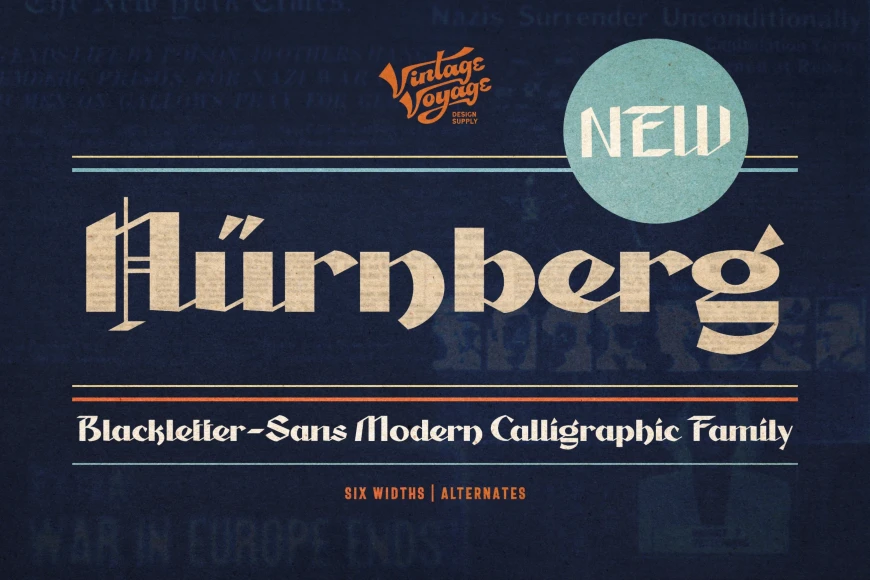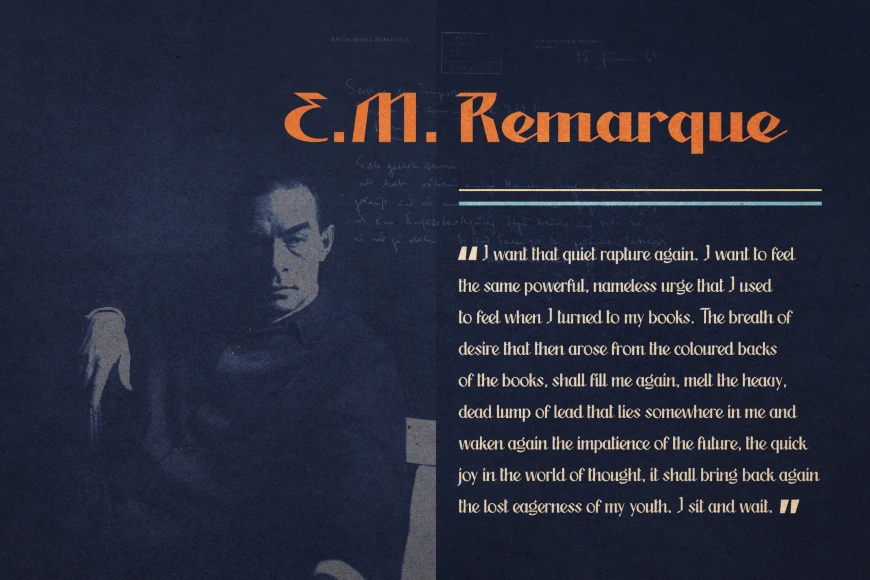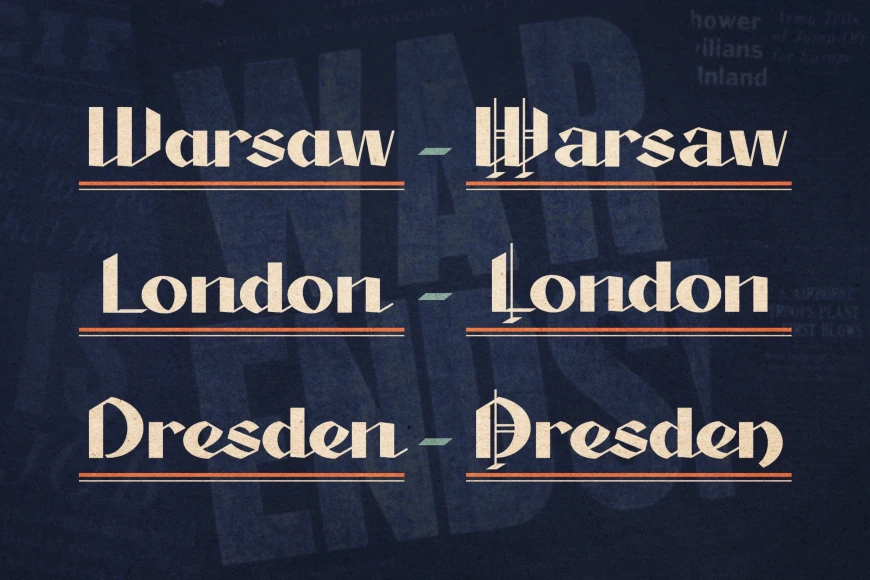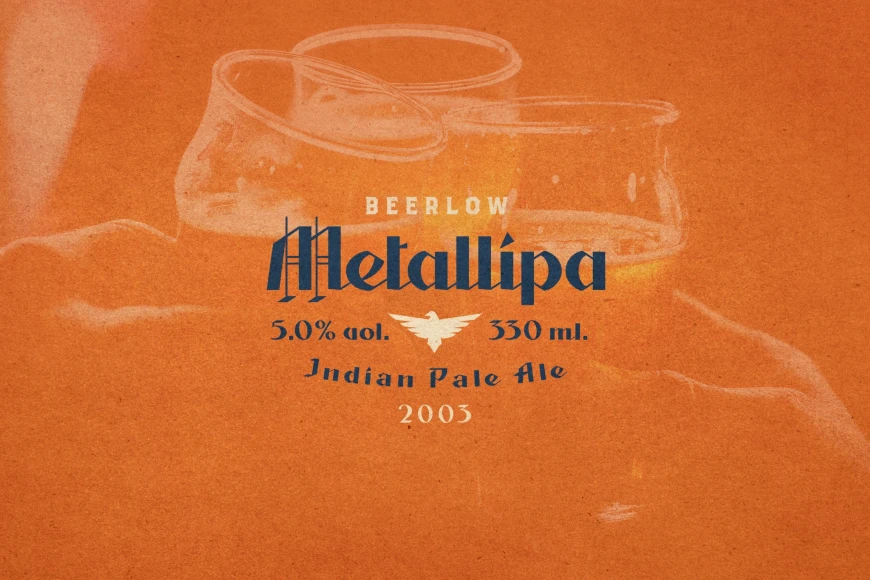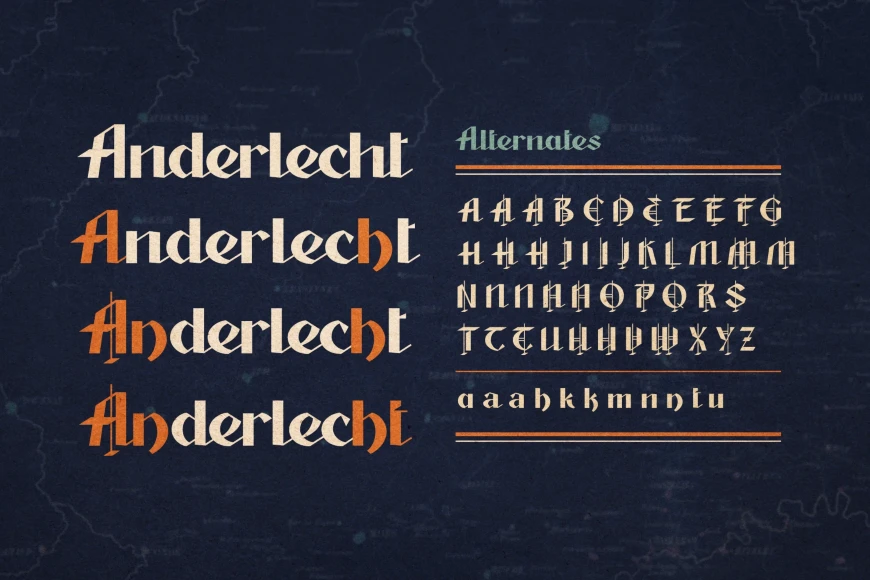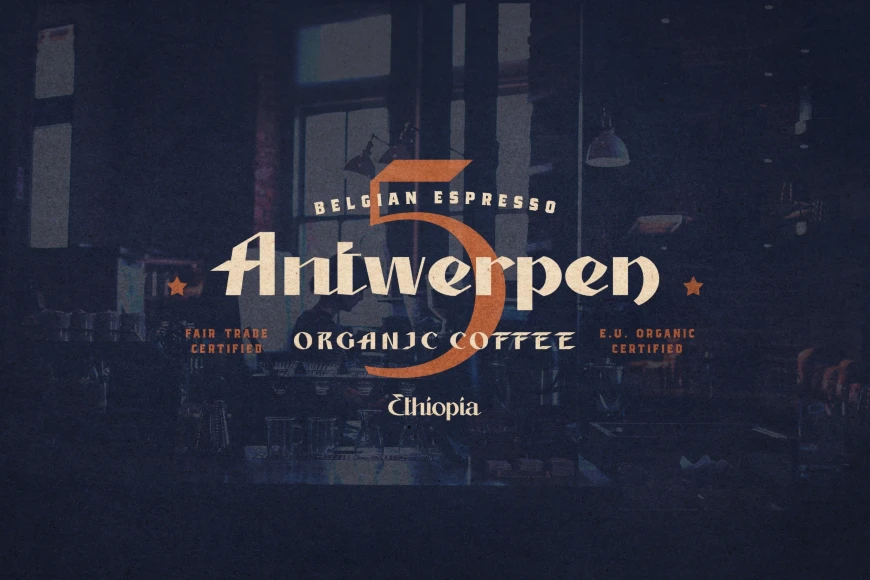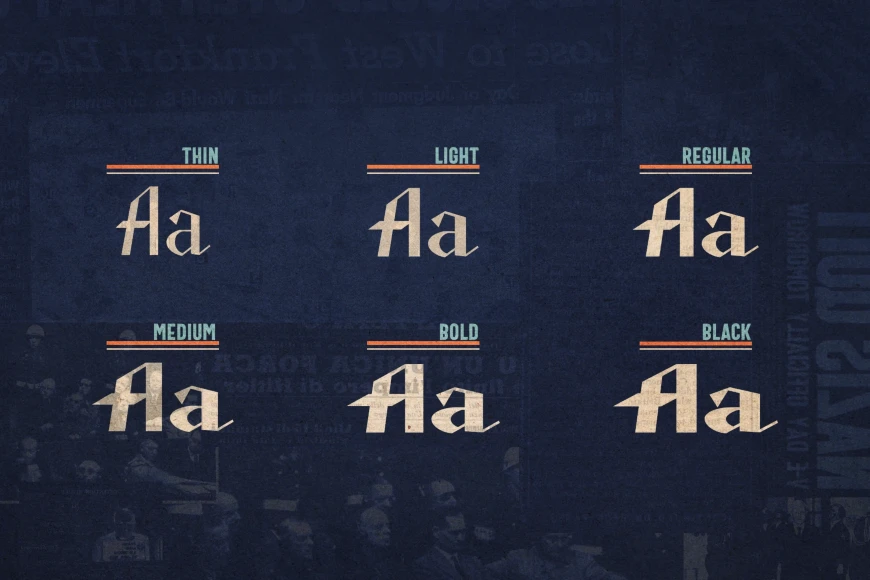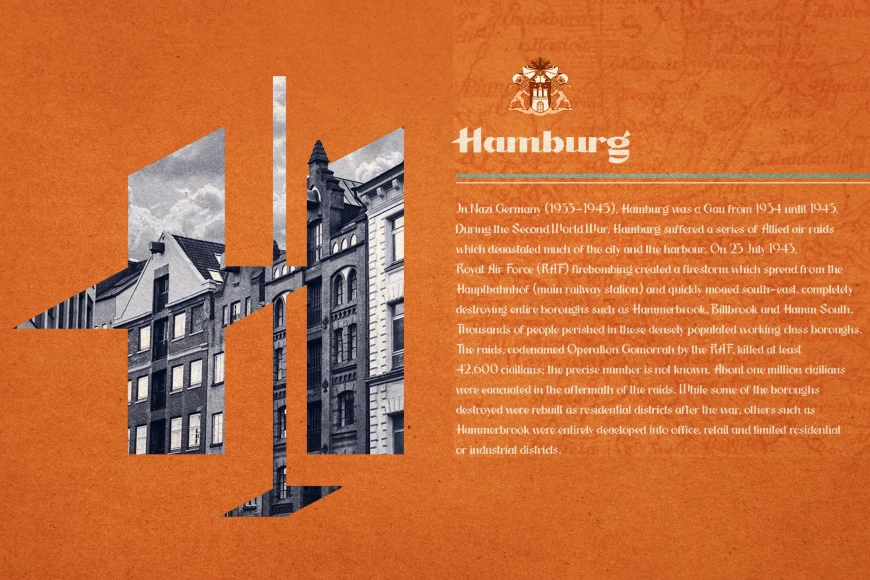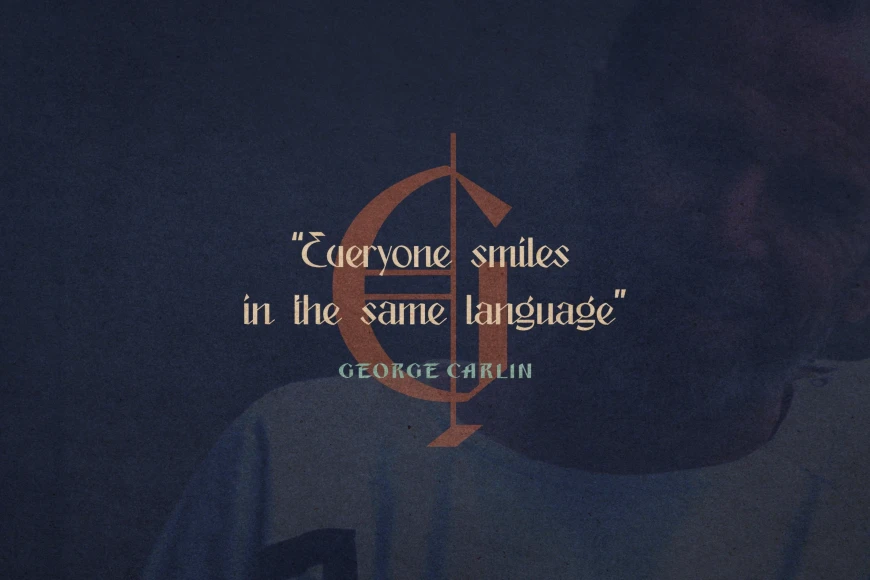
Nurnberg
Nurnberg Thin
Nurnberg Light
Nurnberg Regular
Nurnberg Medium
Nurnberg Bold
Nurnberg Black
Nurnberg is a modern blackletter-sans font family with strong contrast and distinctive character. Combines standard sans-serif forms with alternate uppercase letters inspired by traditional blackletter styles. Paired with expressive lowercase alternates, it offers a bold, unconventional look.
Available in six widths, from Thin to Black, making it versatile across a wide range of uses. Bold and Black weights work well for magazine headlines, logos, cafe or bar signage, and menus. Medium and Regular are suited for shorter text blocks and highlighted content. Light and Thin are ideal for large-point sizes, short words, and standout numerals. Designed to bring sharp modernity and historical flair to contemporary typography.